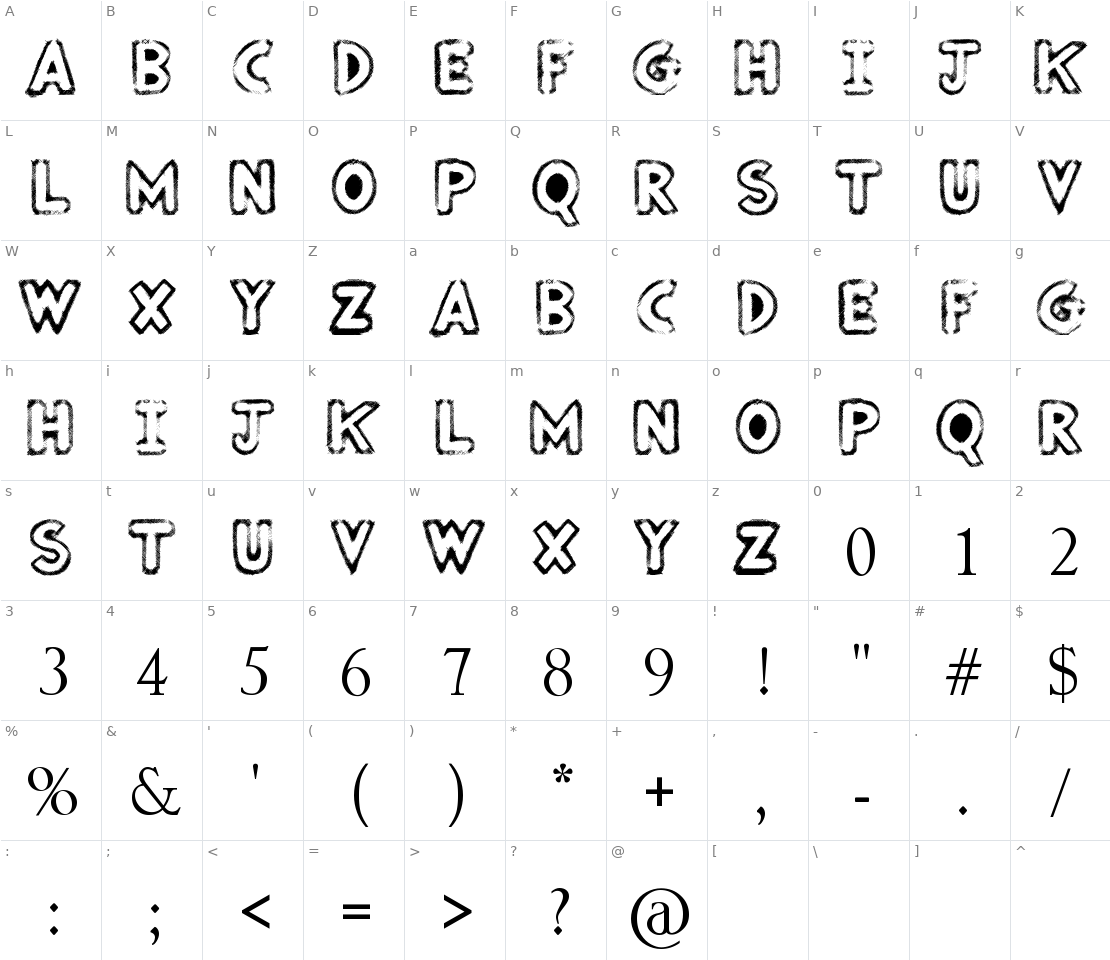
Punked Out
Punked Out is a rough, heavy display face from Jonathan S. Harris with letterforms that look like they were torn off a photocopied gig flyer. The thick strokes are covered in gritty texture and visible wear, giving it the kind of raw, DIY energy that fits punk zines, band posters, and underground branding. It hits hardest at large sizes where the distressed detail can do its thing.